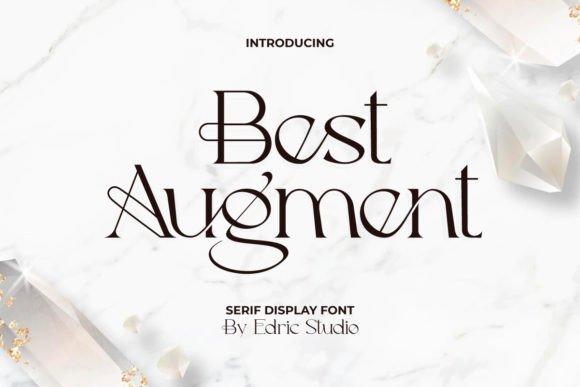
Welcome to the world of Best Augment Font, a captivating masterpiece designed by EdricStudio, crafted to elevate your creative horizons. This stunning serif display font embodies grace and sophistication, beckoning you to explore its limitless possibilities.
With its slender strokes, Best Augment Font dances across the canvas like a delicate ballet. Its stylish curves and impeccable spacing create a visual symphony that commands attention. This font was designed with luxury in mind, extending its charm to a myriad of industries, from the allure of cafés to the elegance of nail salons, from the allure of fashion houses to the tranquil ambiance of spa salons.
Best Augment Font isn't just a font; it's an experience. Its meticulously designed character set and precise kerning create a seamless flow that entrances the eyes. With its extended support, this font is a versatile chameleon, adapting effortlessly to diverse projects such as art frames that capture moments, brand logos that leave a lasting impression, and business cards that exude professionalism.
But Best Augment Font doesn't stop there. It's perfect for headers that demand attention, magazines that ignite inspiration, and catalogs that showcase beauty. Mockup designs come alive with its presence, and quotes gain a new level of significance. Signage becomes more than mere words, and stationery takes on a life of its own. Even websites, with their digital tapestry of information, are transformed into visual feasts.
The magic of Best Augment Font extends beyond its aesthetic appeal. It's a PUA-encoded font, granting you effortless access to a treasure trove of glyphs and ligatures. Unleash your creativity and weave intricate designs that captivate and enchant.